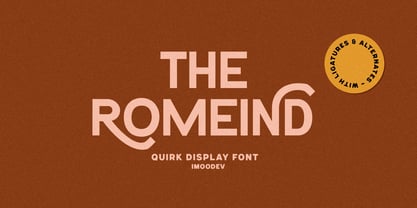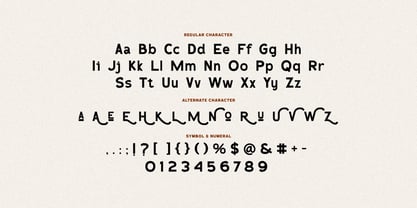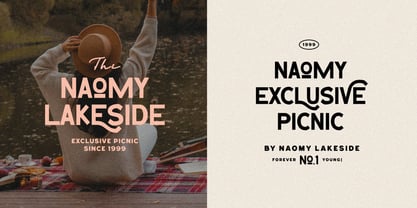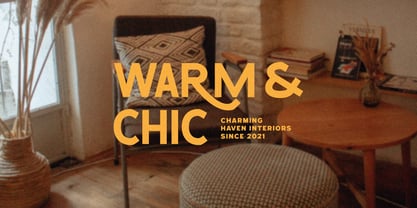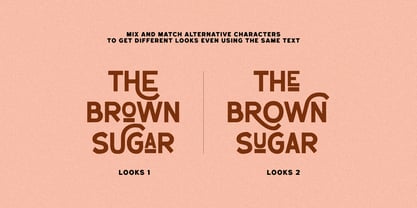
The Romeind
by Imoodev
The The Romeind Font Family was designed by Aulia Savira Putri and published by Imoodev. The Romeind contains 1 styles. More about this family
The Romeind is a quirck display font with clean and structured regular characters offer excellent readability, while alternate character featuring flowing, and swash, extensions that add rhythm and visual interest. These alternates bring a playful, theatrical touch, perfect for headlines, lifestyle brands, posters, album covers, magazine cover, boutique packaging, editorial headlines, logos, handcrafted, and more.
Designers: Aulia Savira Putri
Foundry: Imoodev